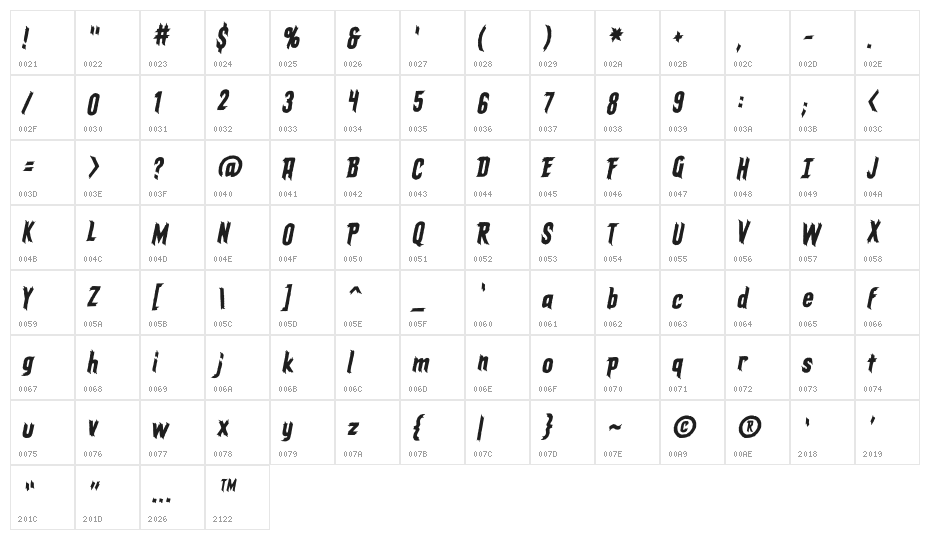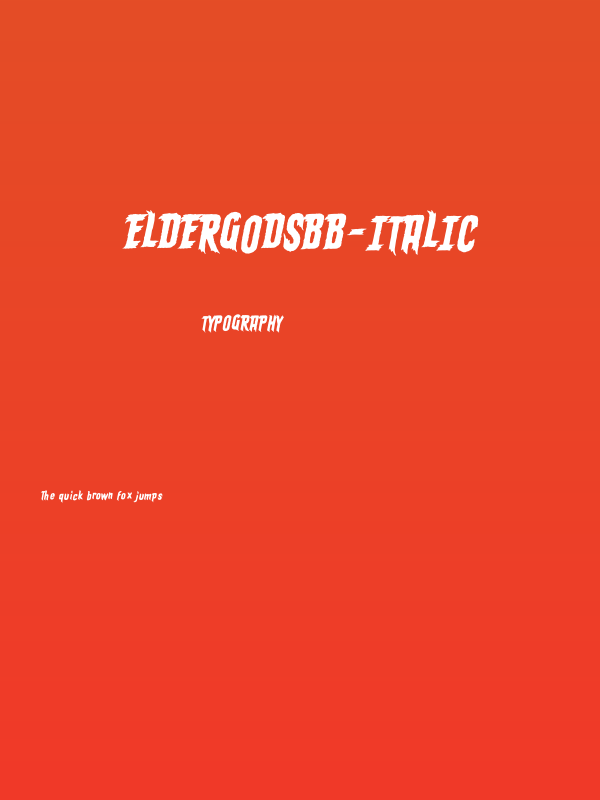
ElderGodsBB-Italic Font
ElderGodsBB-Italic Description
This font features a bold and dynamic design with sharp, jagged edges that give it a fierce and energetic appearance. The letters are italicized, adding a sense of motion and urgency. The uppercase and lowercase characters maintain a consistent style, with exaggerated serifs and a slightly condensed form. Numbers and special characters follow the same aggressive aesthetic, making the font suitable for attention-grabbing headlines or thematic designs. The overall look is reminiscent of horror or fantasy genres, with a unique flair that stands out.
| Proposed Projects | Ideal for horror movie posters, video game titles, Halloween-themed events, or any project requiring a dramatic and intense typeface. |